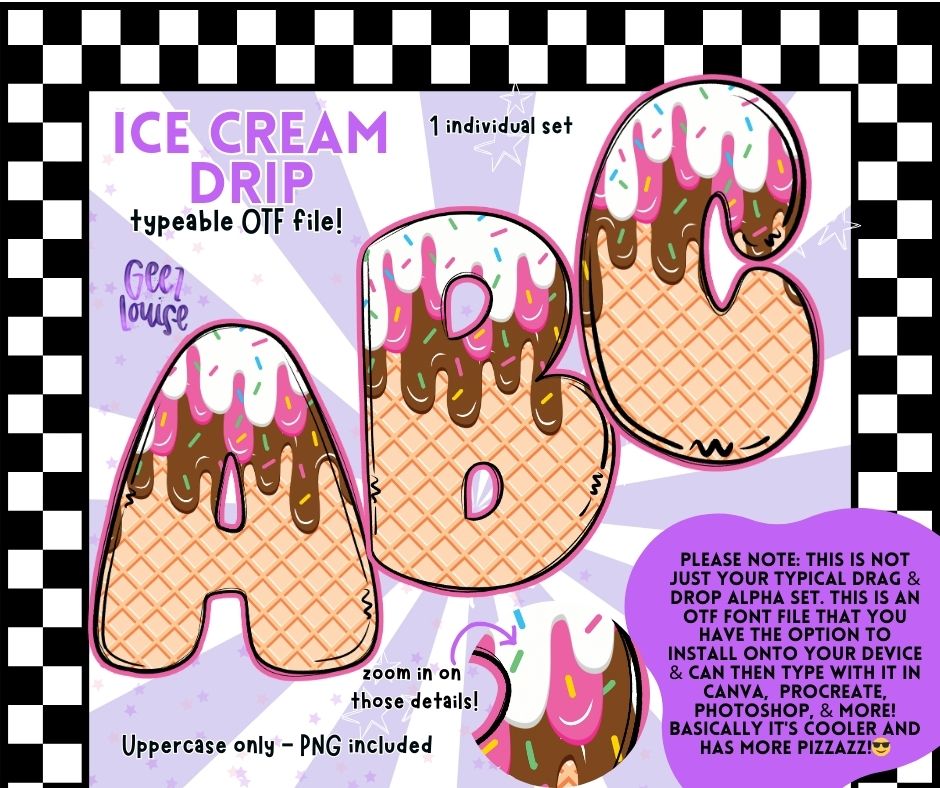
Ice Cream Drip OTF Alpha – Sweet & Stylish! 🍦✨
Add a touch of sweetness to your designs with the Ice Cream Drip OTF Alpha! This typeable OTF font + PNG set features fun waffle cone textures, dripping chocolate, and colorful sprinkles—perfect for adding a playful, summery vibe to your projects.
✔ Uppercase PNG Letters – High-quality, detailed letters for custom designs.
✔ Unique Ice Cream-Inspired Style – Perfect for birthday themes, dessert shops, summer projects, and more!